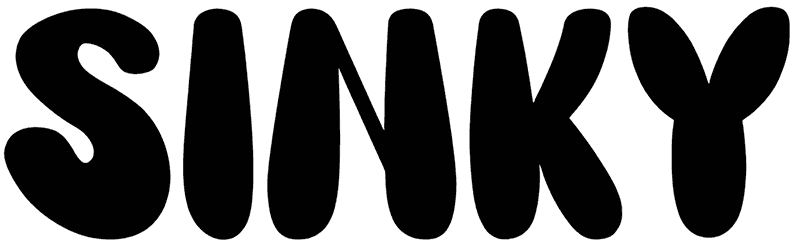
Sinky Font
Bringing together for tracking the best way of designing, and also developing many storybooks, anime programs, toy packaging, and other materials, calling for a fun attitude.
Don’t panic about lacking lowercase letters. Sinky has learned its job in executing well in the judgments of onlookers, so starting off with a simple, breezy process of this balloon font and counting moments for the result that integrates with an animated and playful touch. Hope you find pleasure in designing!